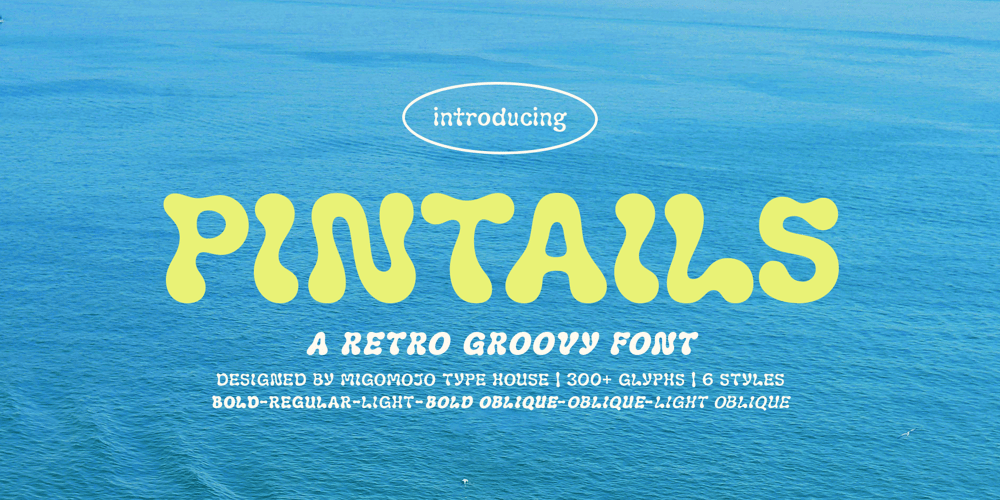
Pintails Font Family was designed by Komara Sani and published by Migomojo Type House. Pintails contains 6 styles and family package options. Pintails is all about those easygoing, inspired by the charm of the flow and bubbly shape of the wave, Pintails brings a gentle touch of summer retro vibes. A hint of sparkle and a bit of that groovy feel—simple, versatile, and ready to play!Design: Migomojo Type HouseClass: DisplayGlyphs: 300+Styles: 6 (Light, Regular, Bold, Light Oblique, Obllique, Bold Oblique)